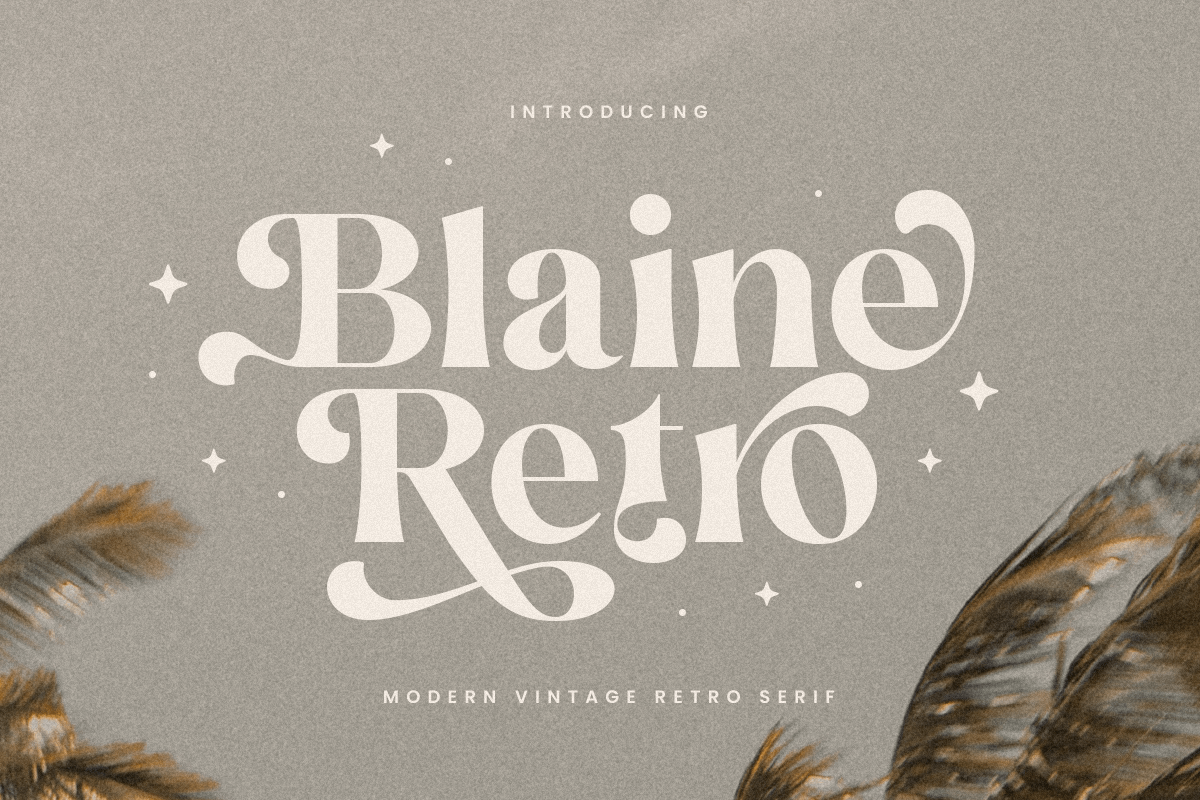
Blaine Retro
-Retro FontBlaine is a retro-inspired font that brings the essence of vintage design into the modern era. With its cinematic flair and nostalgic character, Blaine is perfect for projects that require a touch of timeless elegance. Whether you're creating a logo, poster, or branding materials, this font's retro vibes will make your work stand out.
The story behind Blaine is rooted in the golden age of design, drawing inspiration from classic films and vintage typography. It's designed to evoke emotions of nostalgia while maintaining a modern twist. Blaine's versatility makes it suitable for a wide range of applications, from movie titles to packaging design.
With its unique alternative characters and multilingual support, Blaine offers endless creative possibilities. It's the perfect choice for designers looking to create captivating visuals that leave a lasting impression.
Blaine Retro Font Features:
Unique Alternative Characters Ready